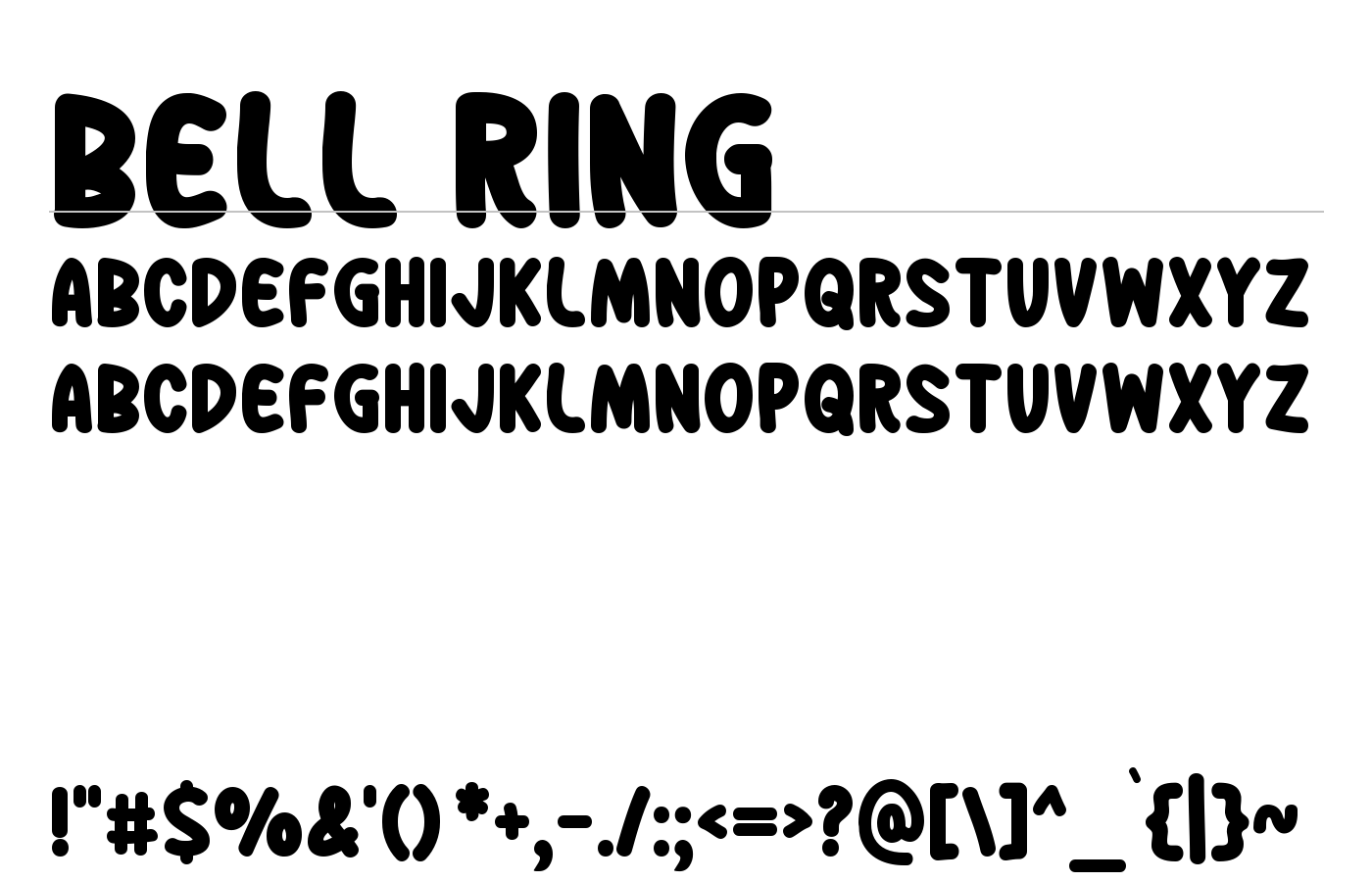
Bell Ring is a playful and friendly sans serif font with rounded, bold letterforms that create a warm and approachable feel. Its wide, bubbly shapes and consistent stroke weight make it ideal for casual, fun designs such as children's books, party invitations, and playful branding. This font works well in headlines and display uses where a lively, informal tone is desired.
Bell Ring Font
About Bell Ring Font